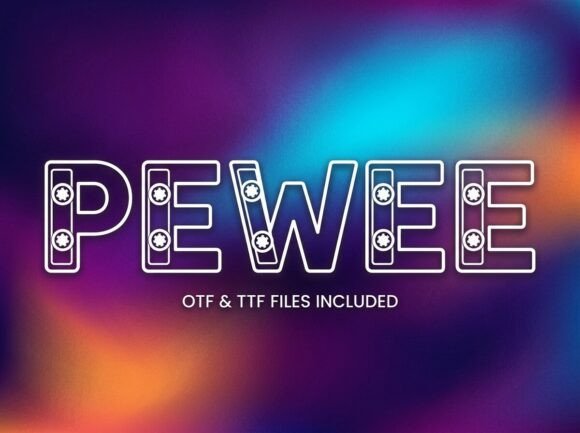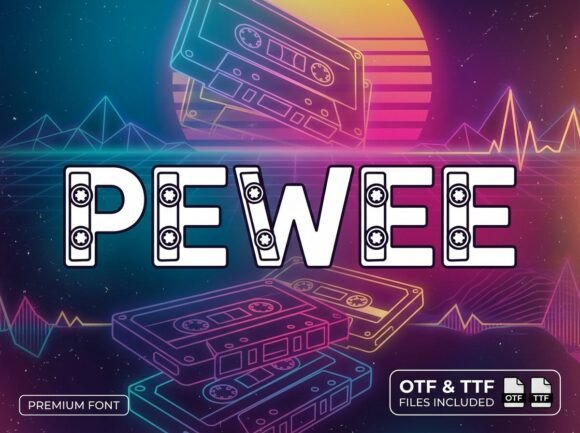
Introduction to Pewee Font
As a designer, you know that finding the perfect font can make or break a project. It’s that moment when you finally see your creative vision come to life, and the right font is the key to unlocking it. I still remember the thrill of discovering a stunning font that elevated my design from ordinary to extraordinary. That’s exactly what the Pewee Font promises to deliver – a bold, eye-catching display font that demands attention and leaves a lasting impression.
Designed to be the centerpiece of any creative project, the Pewee Font is a versatile and high-quality design resource that’s perfect for logos, packaging, and even artistic backgrounds with a transparent effect. Whether you’re a seasoned designer or just starting out, this font is a valuable addition to your design arsenal. With its professional finish and unique artistic elements, the Pewee Font is sure to take your designs to the next level.
Available in both OTF and TTF file formats, the Pewee Font is easy to use and integrate into your designs. But remember, this is an all-caps display typeface, specifically designed for high-impact headlines, logos, and decorative initials. Get ready to unleash your creativity with the Pewee Font and discover a new world of design possibilities.
Key Features of Pewee Font
- High-quality, unique typography for creative projects, offering a distinctive aesthetic.
- Features a transparent background, allowing for seamless integration with images and other design elements.
- Designed with high resolution (up to 300 DPI) for crisp and clear display, even at large sizes.
- Includes a range of font sizes and styles, from bold to light, to cater to different design needs.
- Perfect for digital and print design, including logos, branding, and marketing materials.
Honest Review: Pewee Font
What works well: ✨ Pewee Font is incredibly versatile, making it perfect for a variety of design tasks. Its high quality and clean design make it a great choice for projects where readability is key. I’ve also appreciated the transparent background option, which gives me more flexibility when working with complex design elements.
- Perfect for logos, branding, and marketing materials
- Works well in digital and print formats
- Great for designers of all skill levels
While Pewee Font is a great resource, I do have a few minor complaints. ⚠️ The font can be a bit too minimalist for some projects, which may require a bolder or more attention-grabbing design. Additionally, the font family is relatively small, which may not be ideal for designers who need a wide range of font styles.
Pewee Font
For the best results, use the Pewee Font on a high-quality background to make the text stand out. Common use cases include:
- Designing business cards and flyers.
- Creating social media graphics.
- Developing branding materials.